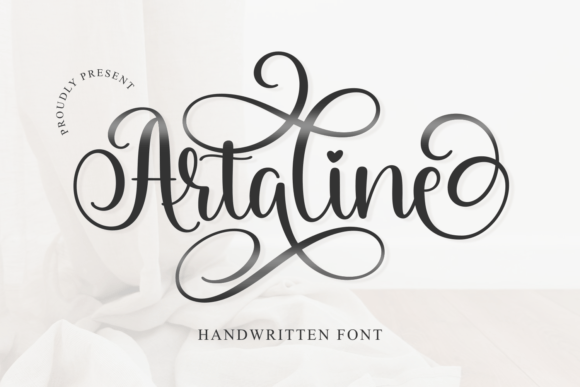
Discover the Magic of Artaline Font
Have you ever stared at a blank page, struggling to find the perfect font to bring your creative vision to life? You’re not alone. For designers, the quest for the perfect font is a constant challenge. But what if you could unlock a font that effortlessly blends elegance with a casual touch, elevating your designs to new heights?
Enter the Artaline Font, a modern calligraphy font that’s designed to add an artistic flair to your logos, labels, branding, invitations, websites, quotes, and more. With its stylish swashes and PUA encoding, Artaline Font is a game-changer for designers who want to make a lasting impression. Whether you’re a seasoned pro or just starting out, this font is sure to unlock limitless creative potential and take your designs to the next level.
Artaline Font Key Features
- Font Family: Artaline is a unique, handwritten font designed for creative and artistic purposes.
- Unique Characteristics: Features a distinctive, flowing script style with irregular letterforms, giving it a personal and artistic touch.
Artaline Font Review
Overall, I’m quite impressed with Artaline Font, especially for its elegant and sophisticated look. ✨ The font is perfect for creating a luxurious and high-end feel in your designs, making it ideal for branding and advertising projects.
- ✨ Elegant and sophisticated look, perfect for high-end designs
- ⚠️ May not be as readable on smaller screens or in low-resolution environments
Overall, Artaline Font is a solid choice for designers looking to create high-end designs with a touch of elegance. While it may have some limitations, its strengths far outweigh its weaknesses. I would definitely recommend Artaline Font to anyone looking to add a luxurious feel to their designs.
The Artaline font is suitable for a variety of applications, including:
- Business cards and stationery.
- Marketing materials and brochures.
- Wedding invitations and party decorations.
- Personal projects and creative endeavors.
Yes, the Artaline font is a highly customizable font. You can adjust the font’s weight, style, and spacing to fit your specific design needs. Additionally, the font’s OpenType features allow for advanced typographic control, such as ligatures, swashes, and contextual alternates.